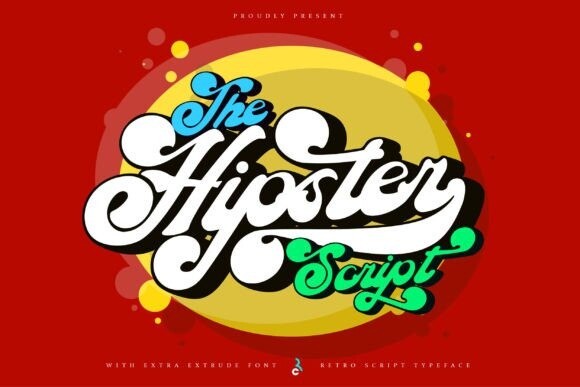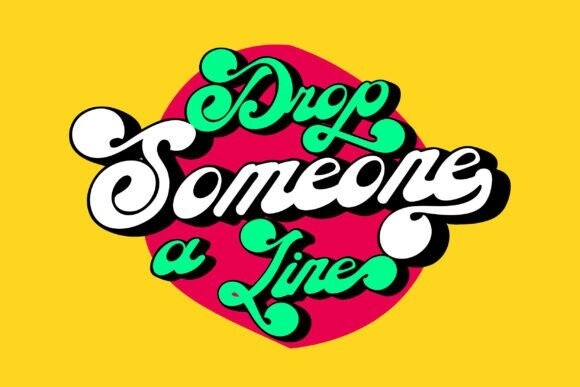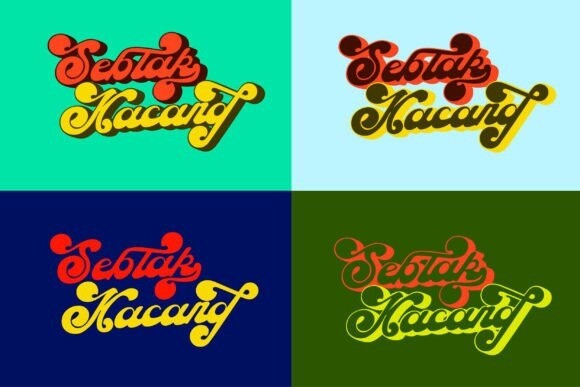
The Hipster Font
The Hipster is a retro script typeface with gentle curves and lines. Add it confidently to your creative projects and you will love the results! The Hipster is PUA encoded which means you can access all the glyphs and ligatures with ease!